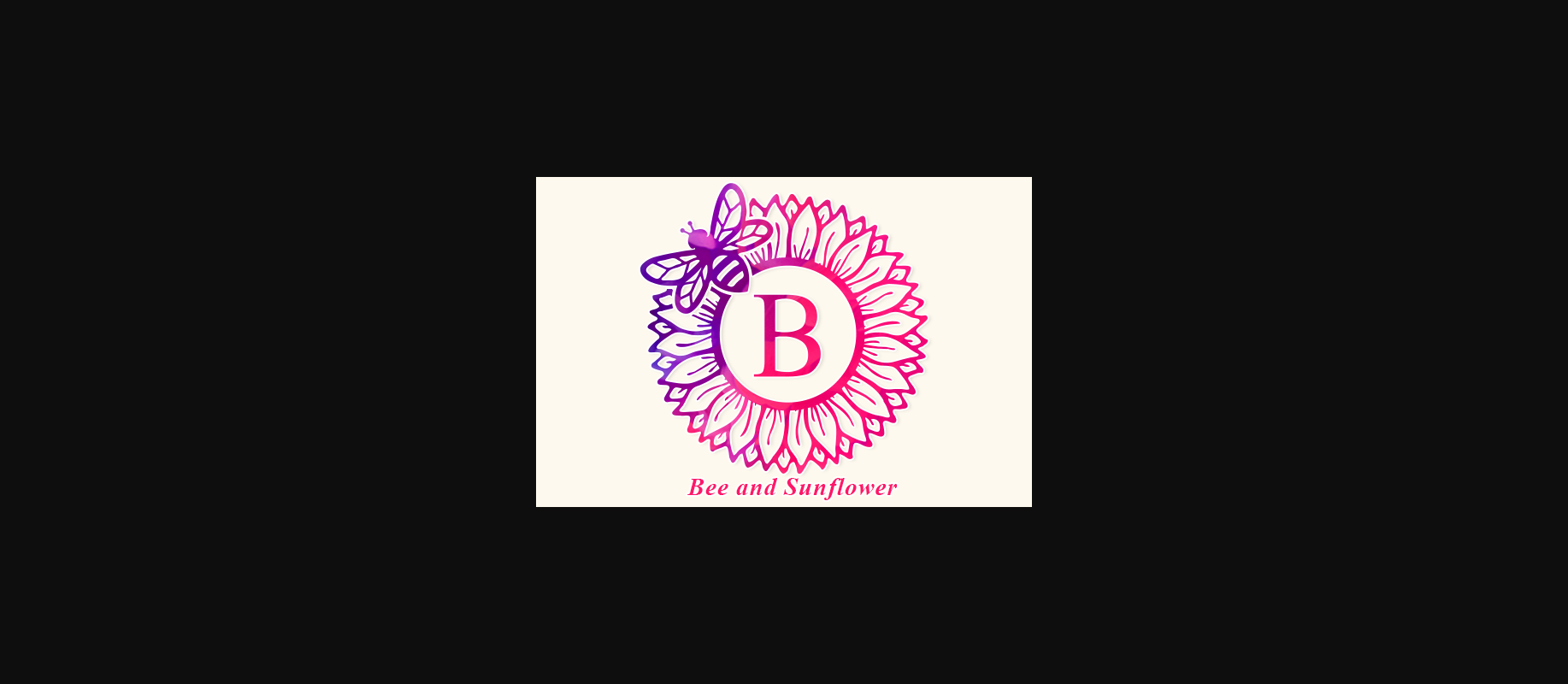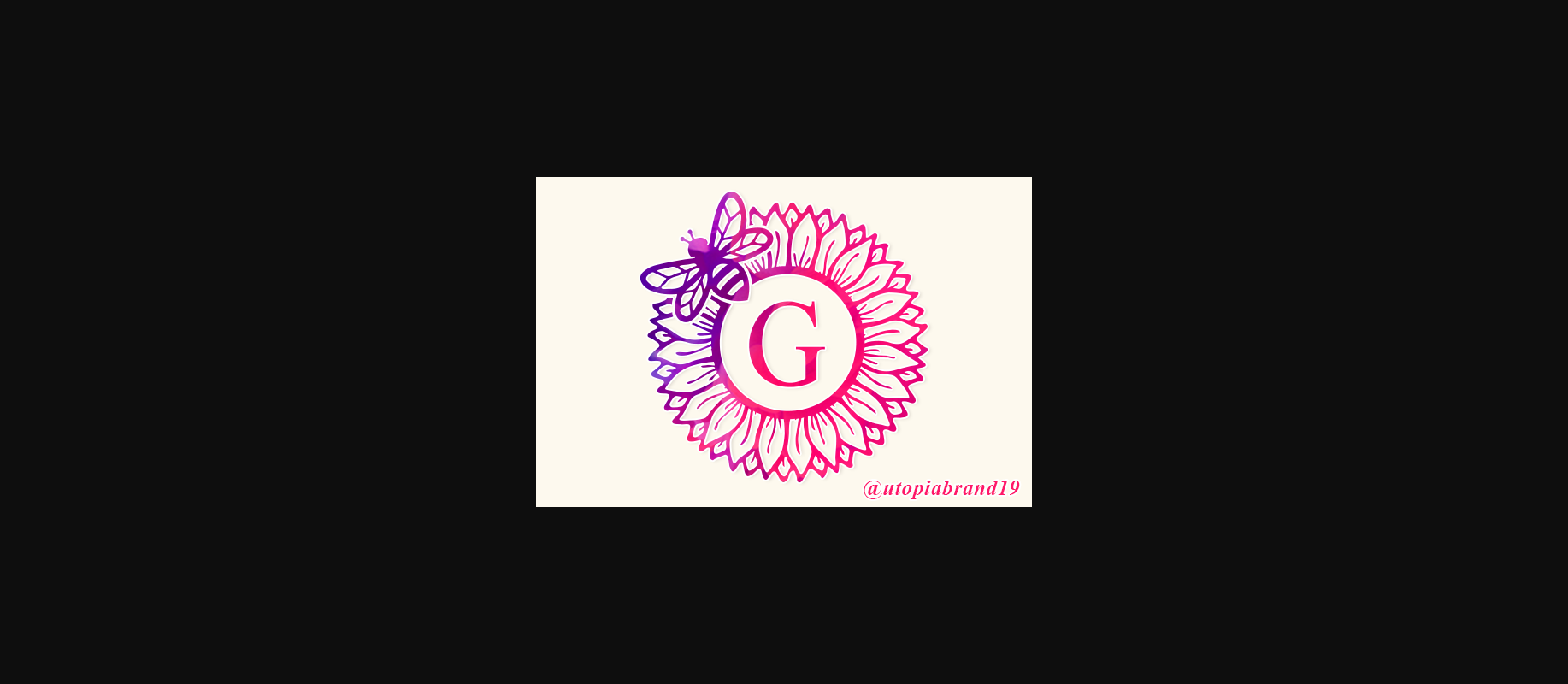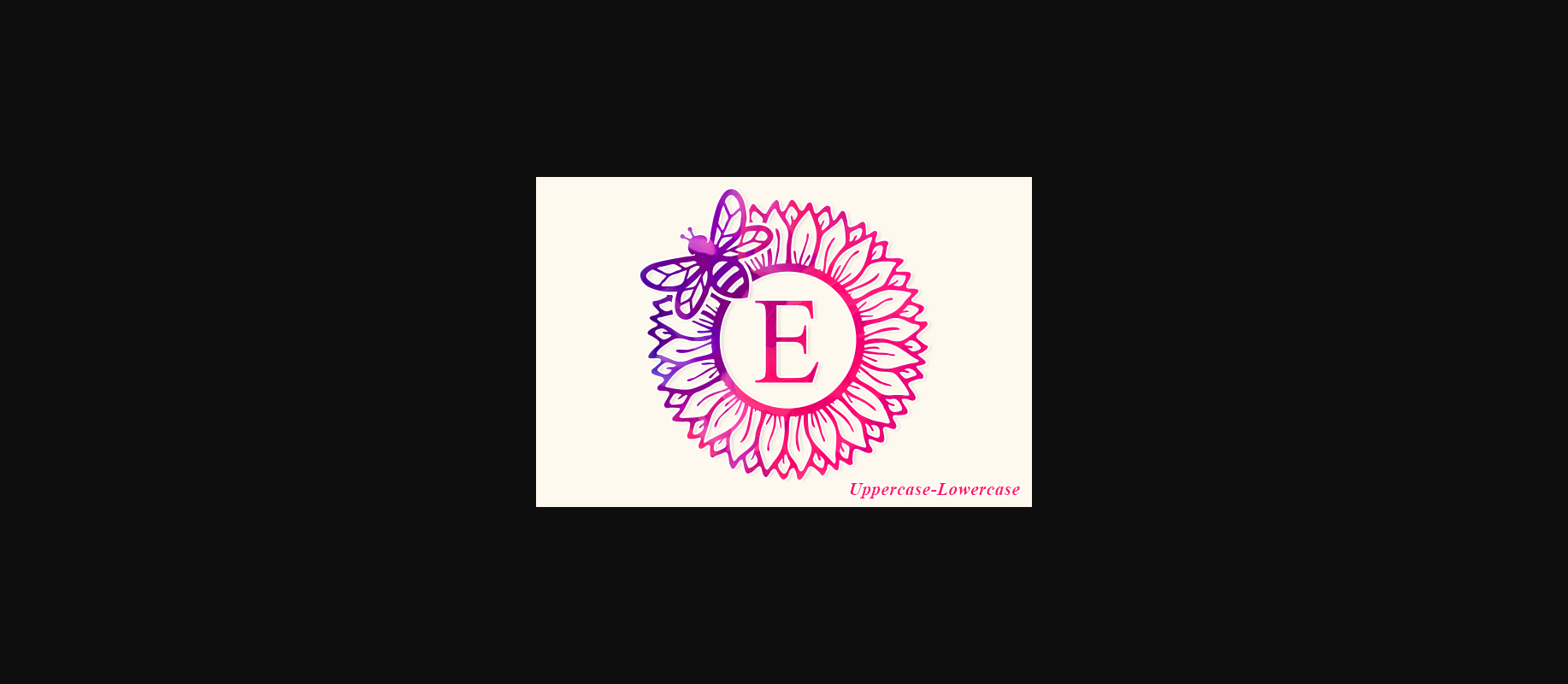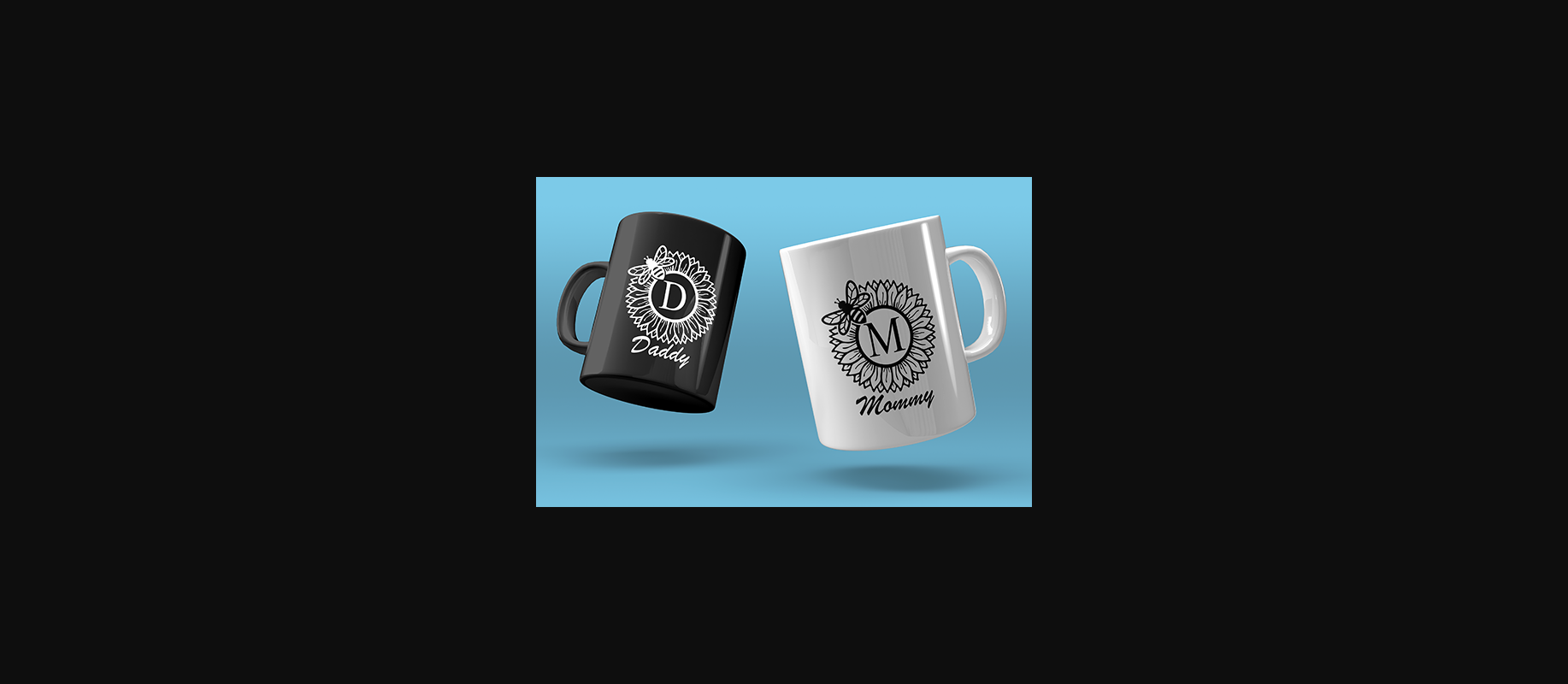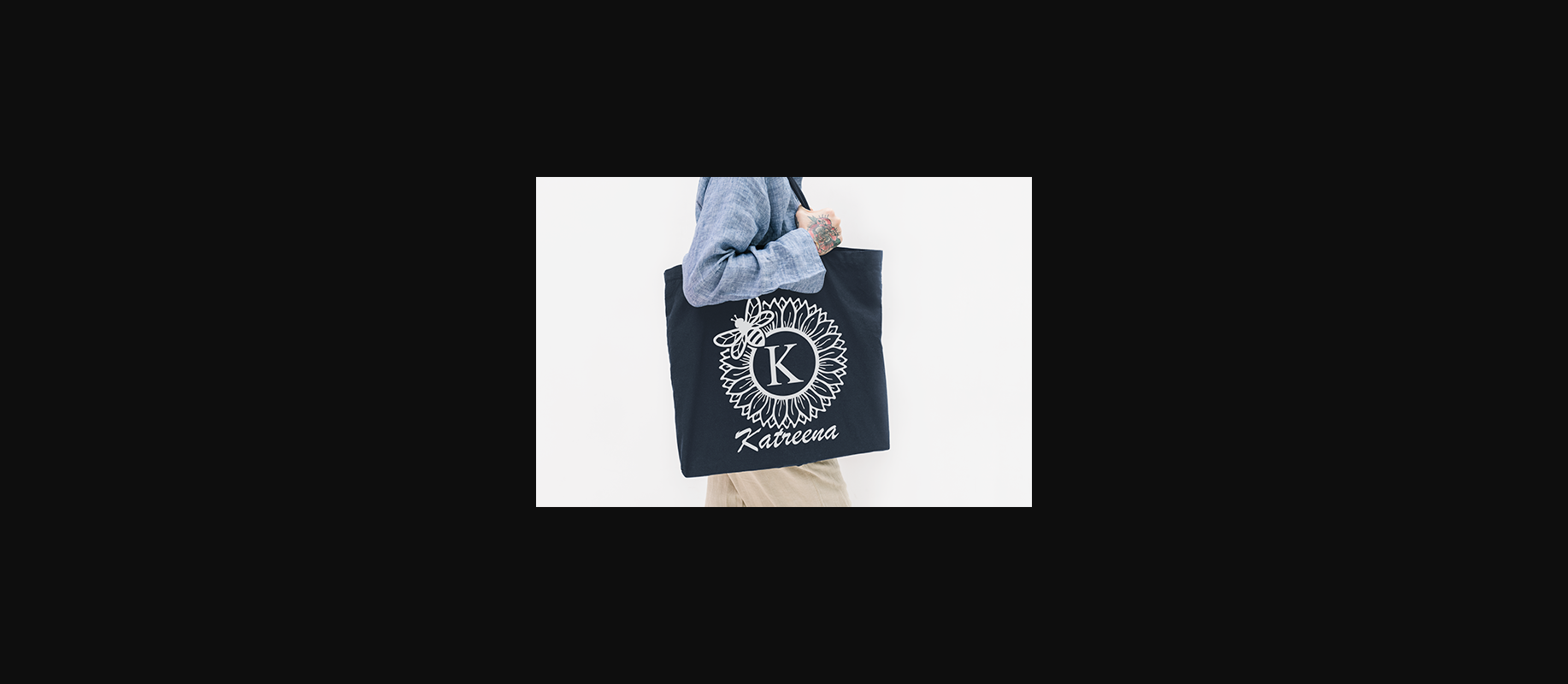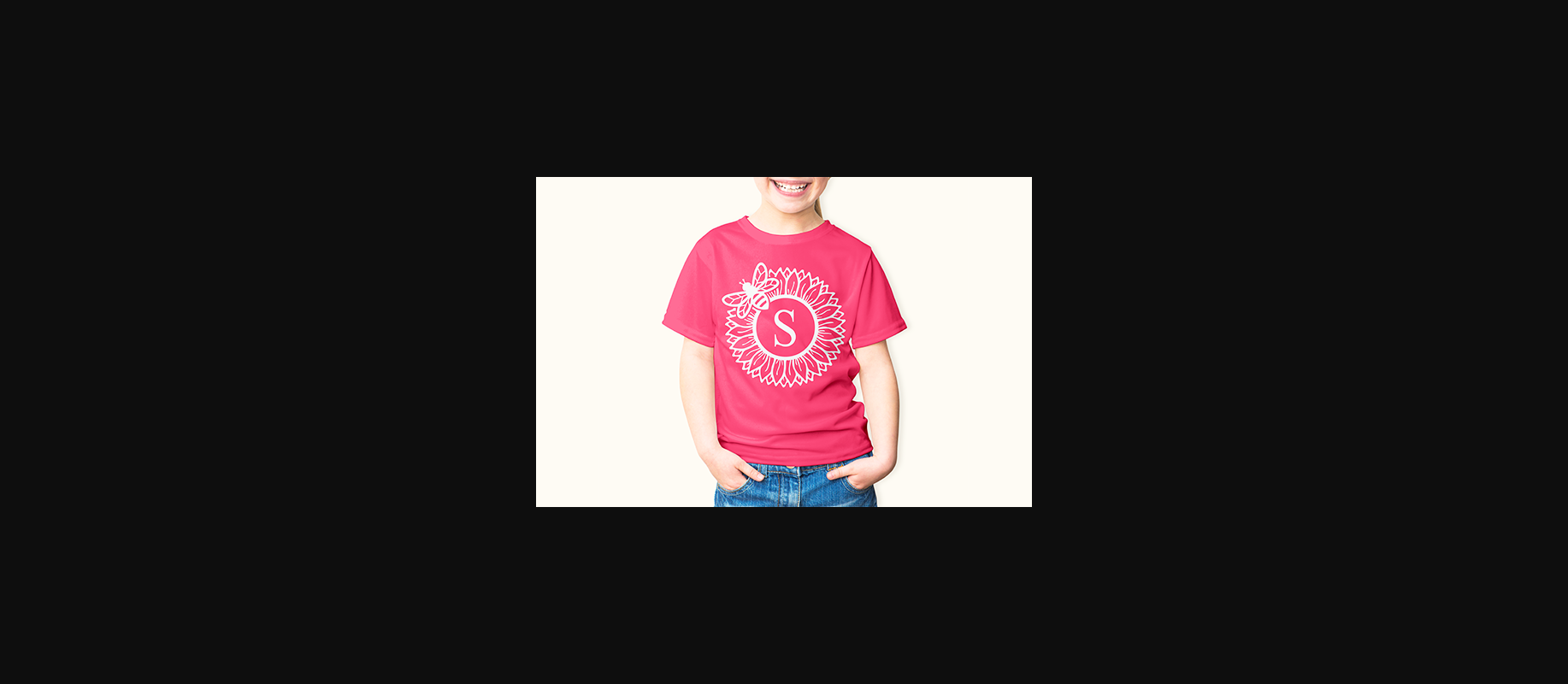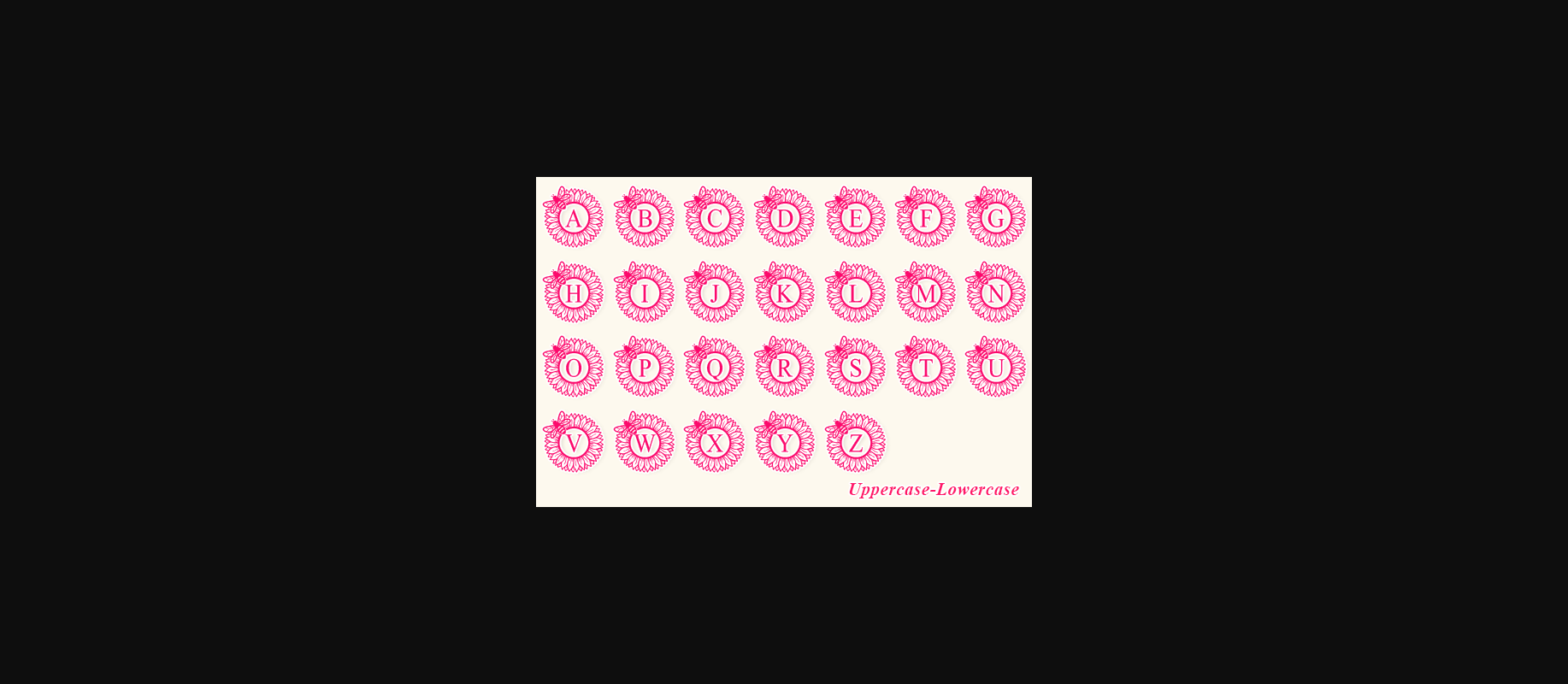
Bee and Sunflower Font
About Bee and Sunflower Font
Bee and Sunflower Monogram is an elegant decorative font, featuring lovely ornaments. Fall in love with its authentic feel and use it to create gorgeous stationary art, eye-catching social media posts, and cute greeting cards.